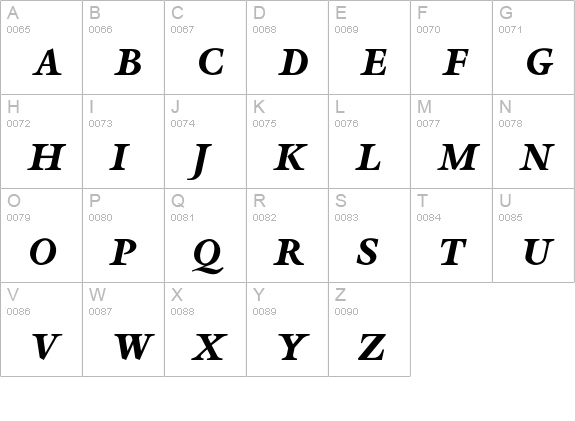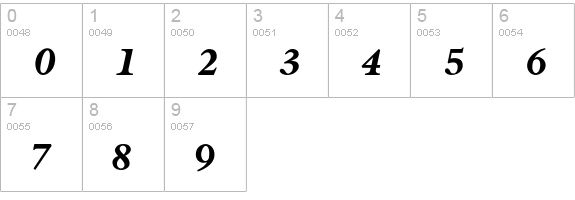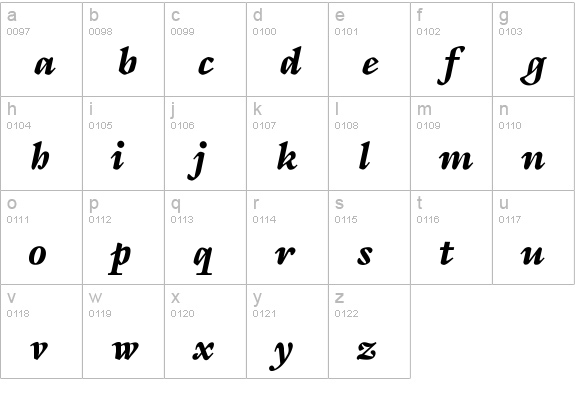
OPTISapir Font Details
OPTISapir is a versatile and modern font that radiates sophistication and elegance. With its clean lines and unique design, OPTISapir is perfect for a wide range of projects, from branding to editorial design. This font effortlessly combines classic elements with a contemporary twist, making it a timeless choice for any creative endeavor. What sets OPTISapir apart is not only its aesthetic appeal but also its accessibility. This high-quality font is available to download for free at FontsMarket.com, allowing designers and enthusiasts to easily incorporate it into their work without any barriers. Whether you're crafting a sleek logo, designing a stylish website, or creating eye-catching print materials, OPTISapir is the ideal choice to elevate your projects and leave a lasting impression. Download OPTISapir today and unlock the potential of this exceptional font for all your design needs.